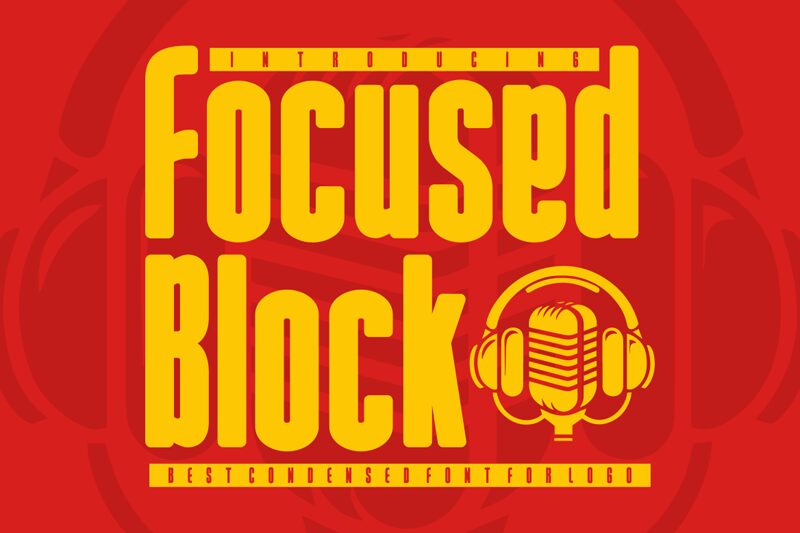
Focused Block font family by PutraCetol Studio is a free sans serif font family that brings a modern, bold, and geometric influence to every project it graces. Emphasizing a minimalist design, the fonts exude a strong impact and can effortlessly elevate the quality of your artwork without taking away from other graphic elements within its context. Since this offer includes only a singular character weight, use Focused Block on selected words rather than whole paragraphs or bodies of text.
Bring this versatile font to your flyers and posters, invitations, and social media ads. Use it for branding projects, through logos where its presence is crucial, business cards, packaging designs, or store banners. Within a school or professional setting, you can put it to use in presentation and their covers, websites, and even phone apps.